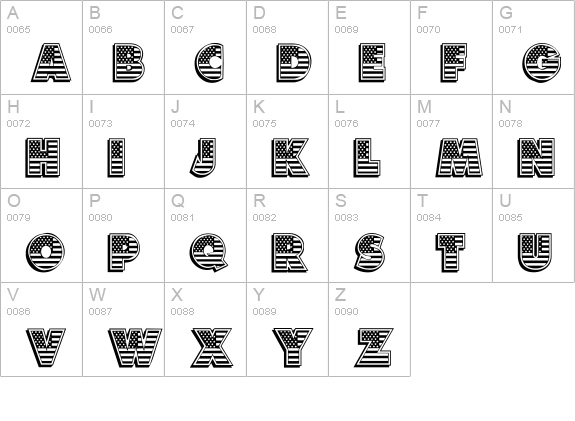
American Dream font is a classic and versatile typeface that embodies the spirit of the American Dream with its bold and impactful letterforms. This font exudes a sense of ambition, freedom, and opportunity, making it the perfect choice for a wide range of design projects. Whether you're creating posters, logos, or branding materials, American Dream font will help your message stand out and make a lasting impression. Moreover, this font is freely available to download at FontsMarket.com, making it easily accessible to designers and creatives looking to add a touch of Americana to their work. With its timeless appeal and modern twist, American Dream font is sure to inspire and elevate your designs to new heights. Embrace the spirit of the American Dream with this captivating font and let your creativity soar.